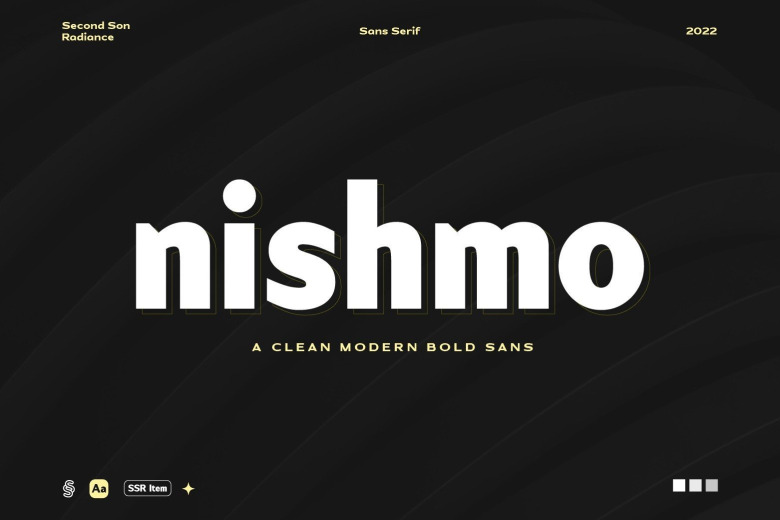
Nishmo Font
Nishmo is a neat and bold sans serif font. Its casual charm make it beautifully down-to-earth, readable and ultimately incredibly adaptable.
This will look excellent in whatever circumstances, whether you’re using it on cluttered backgrounds or as a banner font with enough room around it!
Nishmo Sans Serif Font